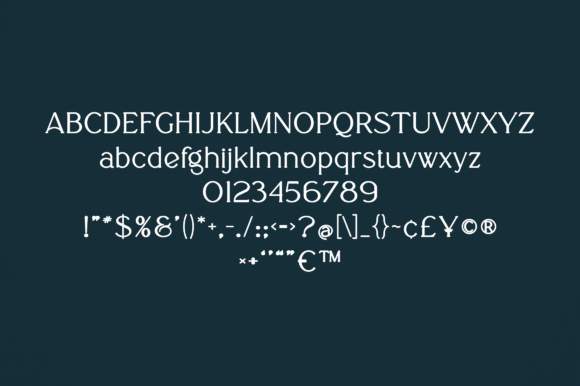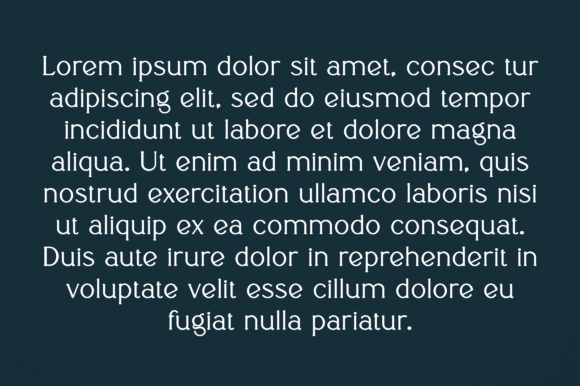
Introducing Djuna Font: Elevate Your Typography with Elegance and Versatility
In the world of design, typography plays a crucial role in conveying messages, expressing creativity, and building brand identities. A font can make or break a design project, which is why selecting the right one is essential. If you’re on the hunt for a typeface that exudes elegance, versatility, and uniqueness, look no further than the Djuna Font. This stunning font is designed to transform your typography into a masterpiece that captivates and enchants.
The Charm of Djuna Font
Djuna Font is an elegant and versatile typeface that promises to take your design projects to the next level. Its sophisticated and refined aesthetic makes it perfect for a wide range of applications, from logos and branding to headlines, plain text, and more. Whether you’re working on a branding project, home-ware design, product packaging, or magazine headers, Djuna Font is the ideal choice. It can even be used as a stylish text overlay to add a touch of sophistication to any background image.
Key Features of Djuna Font
So, what makes Djuna Font stand out from the rest? Here are some of its key features:
- Elegant and Versatile: Djuna Font boasts an elegant and versatile design that adapts seamlessly to various design projects.
- Unique Typography: With Djuna Font, you can create truly unique typography that sets your design apart from the crowd.
- Wide Range of Applications: From logos and branding to product packaging and magazine headers, Djuna Font is suitable for a wide range of design projects.
- Stylish Text Overlay: Use Djuna Font as a stylish text overlay to add a touch of sophistication to any background image.
Why Choose Djuna Font?
With so many fonts available, why should you choose Djuna Font for your design projects? Here are some compelling reasons:
- Enhance Your Brand Identity: Djuna Font can help you create a strong brand identity that resonates with your target audience.
- Stand Out from the Crowd: With its unique and elegant design, Djuna Font can help your design project stand out in a crowded market.
- Easy to Read and Understand: Djuna Font is not only visually stunning but also easy to read and understand, making it perfect for body text and headlines.
- Flexibility: Djuna Font can be used in various design projects, from print to digital media.
Tips for Using Djuna Font Effectively
To get the most out of Djuna Font, here are some tips for using it effectively:
- Pair it with Other Fonts: Experiment with pairing Djuna Font with other fonts to create a unique and visually appealing typography.
- Use it for Headlines and Titles: Djuna Font is perfect for headlines and titles, where its elegant and sophisticated design can shine.
- Experiment with Colors and Textures: Try using Djuna Font with different colors and textures to add depth and interest to your design.
In conclusion, Djuna Font is an elegant and versatile typeface that can elevate your typography to new heights. Its unique design, wide range of applications, and flexibility make it an ideal choice for designers and crafters looking to create stunning design projects. Whether you’re working on a branding project, product packaging, or magazine headers, Djuna Font is sure to enchant and captivate your audience.